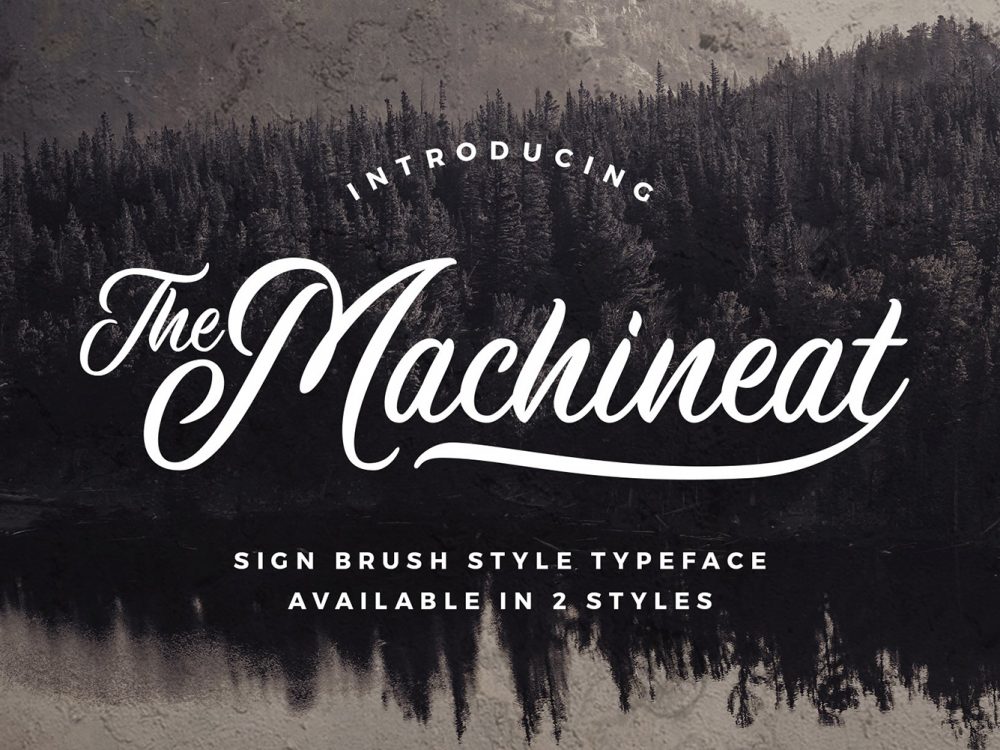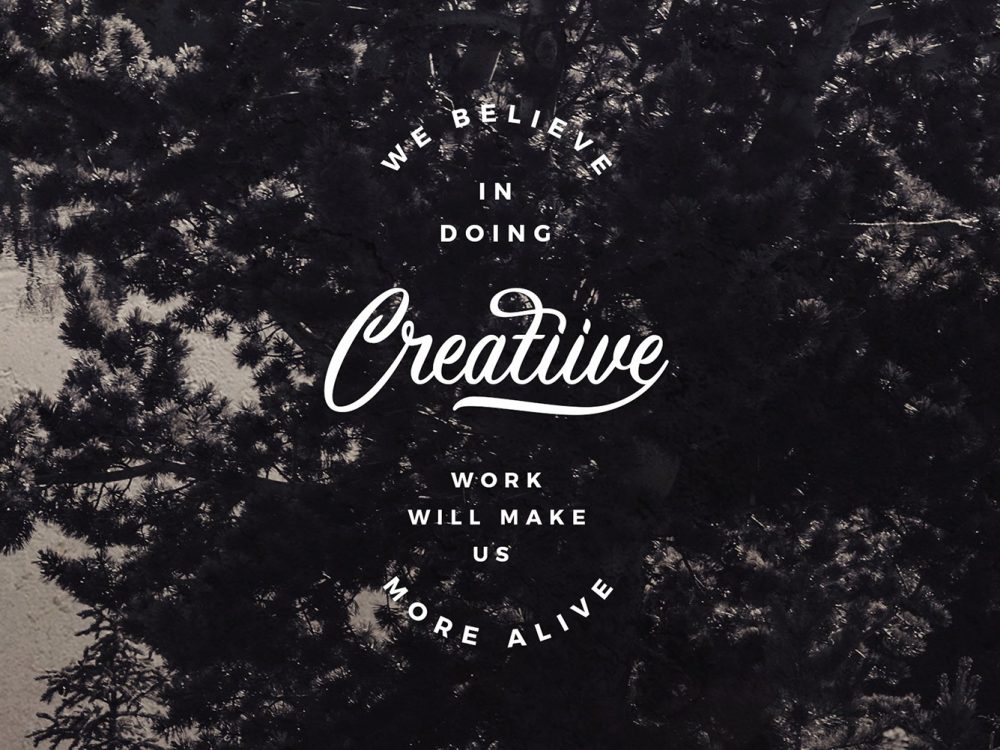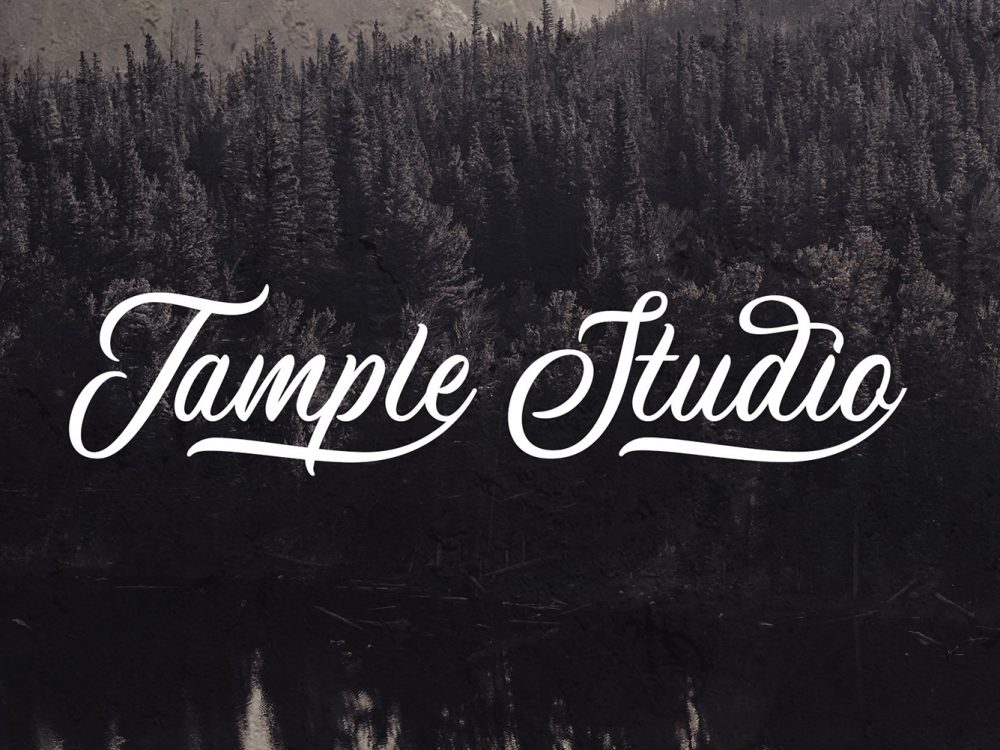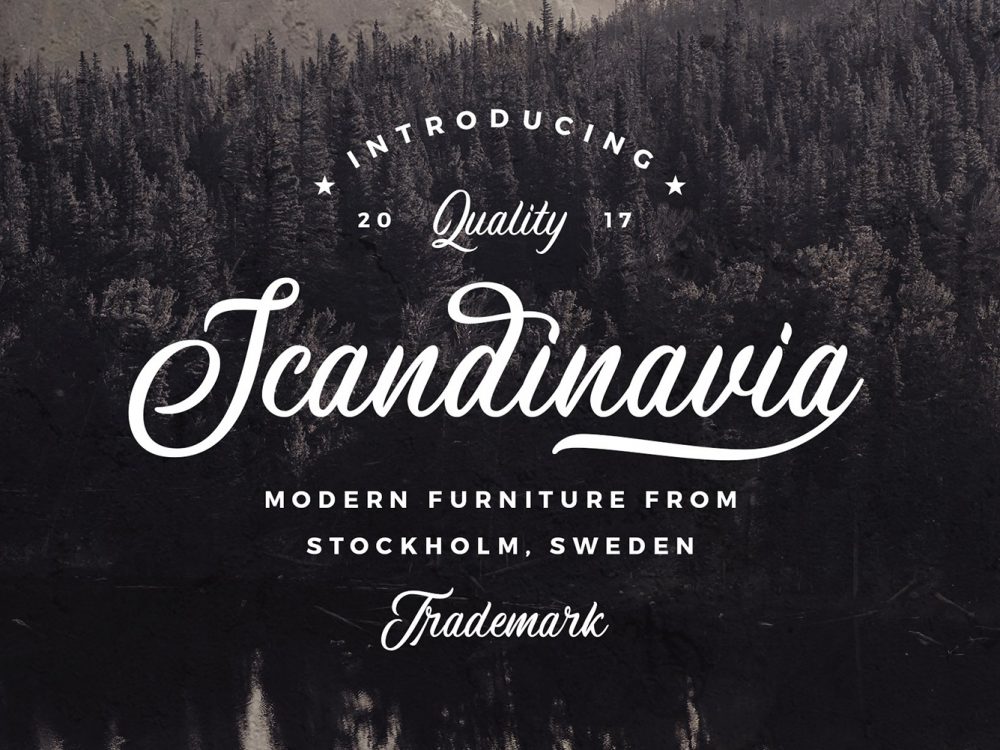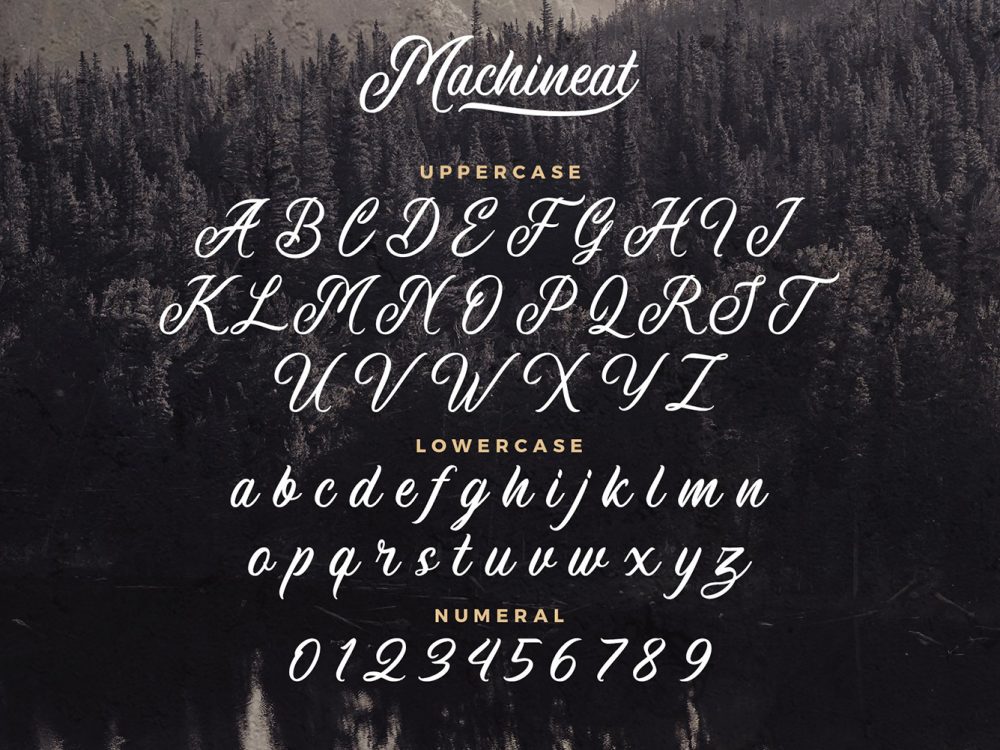
Machineat Font Demo
Machineat Font Demo is a beautiful and interesting typeface imitating writing with a brush, created during the inspiration of various street signs. This font is perfect for creating various design projects that require a scripted font. This can be posters, wedding invitations, cards, branding, flyers, prints, and more.  If you want to use it for commercial work please buy the full version.